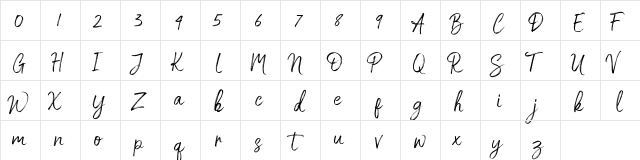
White Buttell Regular Font Preview
White Buttell Regular
White Buttell Regular Font Details
| Foundry | Trustha Studio |
| Designer | Trustha Studio |
Design Context for White Buttell Typeface
White Buttell is a composed and adaptable typeface that performs quietly and consistently across a wide range of design contexts.
Pro Tip: Use White Buttell in both headline and body roles to test its range before committing to a single application.